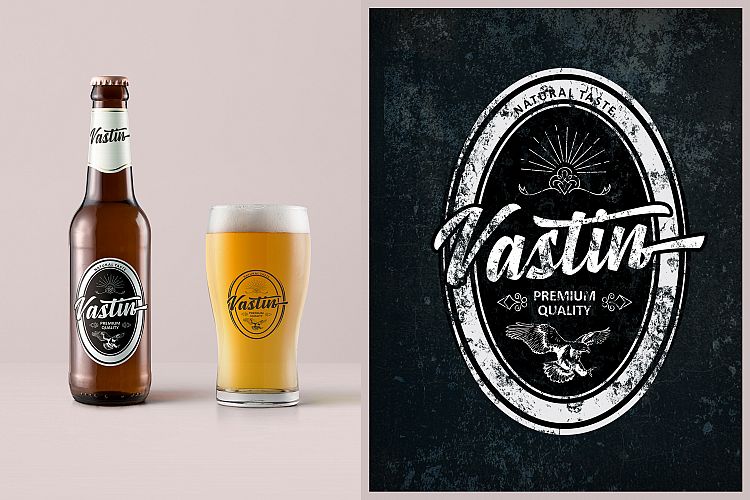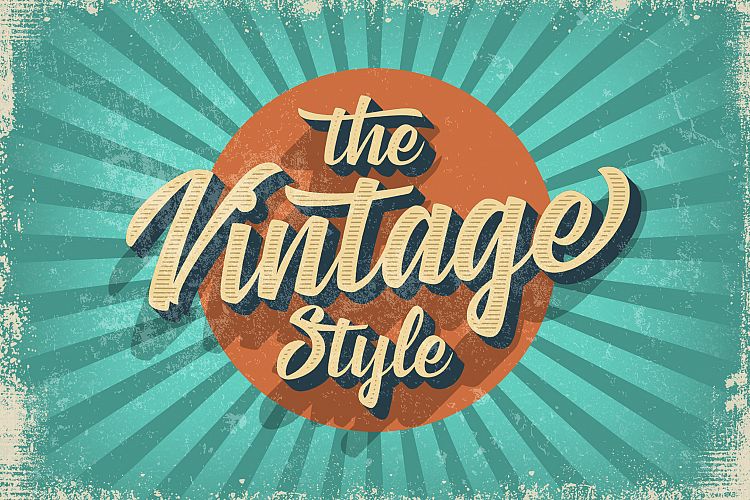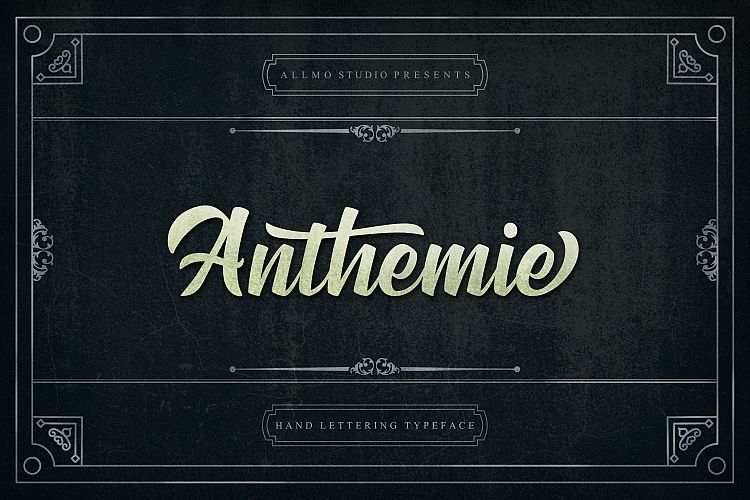
Anthemie Script Font Demo
Thank you for looking Anthemie Font. Anthemie is a script typeface with personality, and multi-purpose font. Anthemie The flowing characters are ideal for attractive messages, mix and match, with a variety of alternative characters to fit your project! Anthemie design and shared by Allmo Studio. Anthemie Script Font Demo Inspired by the new modern vintage style, with script and sans serif combination. Come with a fresh lowercase, uppercase, numerals, ligatures, stylistic alternate, multilingual, etc.This font is perfect for your vintage logo, badges, shirts, labels, apparel design, etc. I also made a design to mix and match pairs of letters to fit your design.